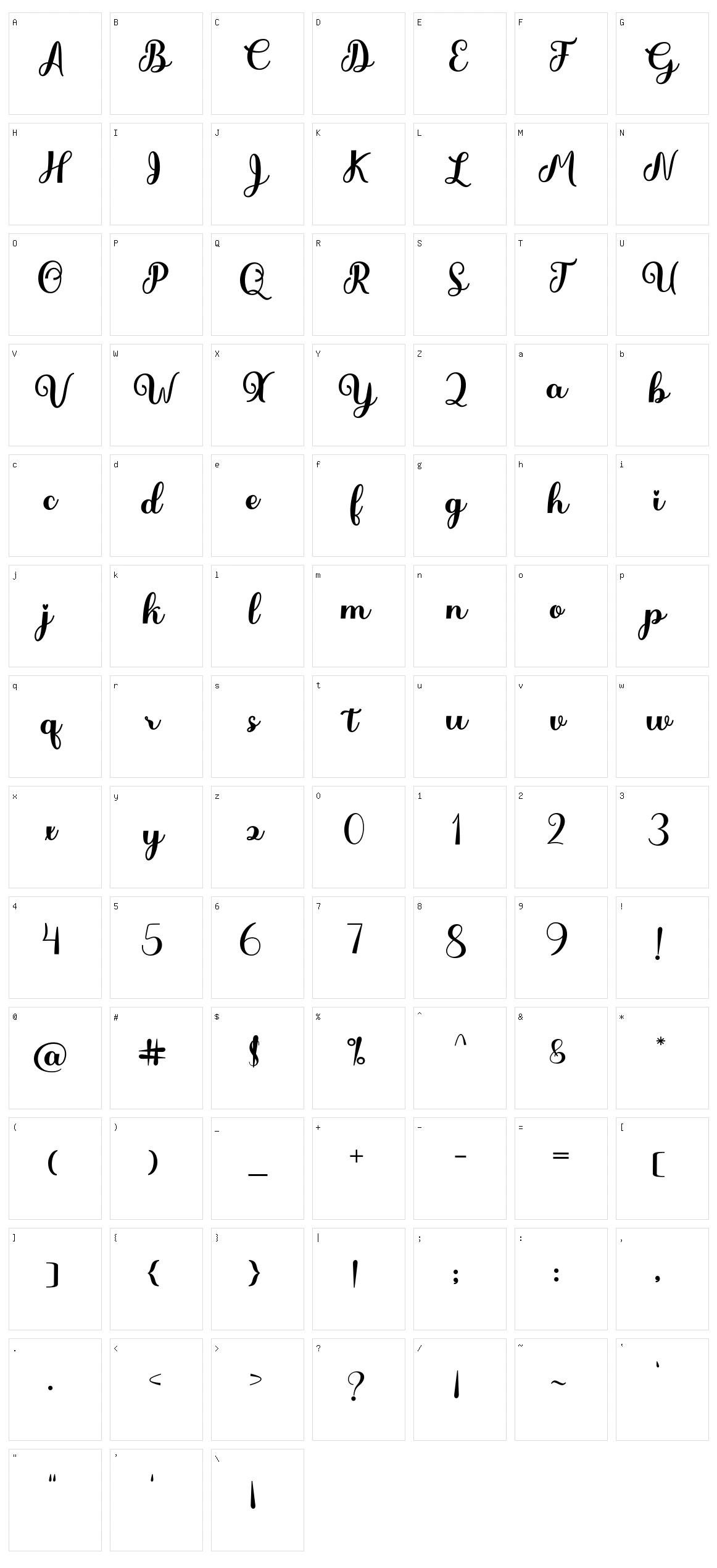
The free font Jealousy Heart is carefully designed by Bosstype Studio, showcasing a thoughtful balance of creativity and usability and falls under the Script font style. When you download the ZIP file, it contains only 31.67 KB of font files, making it lightweight and quick to download. Please review the license details below to understand permitted usage and distribution rights. If license information is not available, we recommend using this font for personal projects only or contacting the author directly for commercial usage permissions.